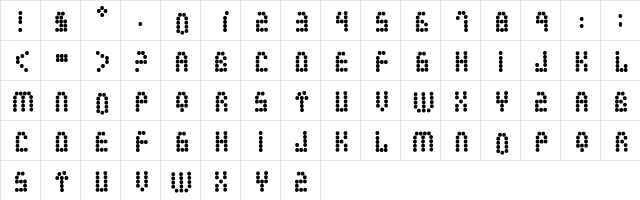
Sooper Dooper Regular
Design Context for Sooper Dooper Typeface
Sooper Dooper takes a measured approach to typography — its balanced proportions and neutral character make it a reliable workhorse for both digital and print work.